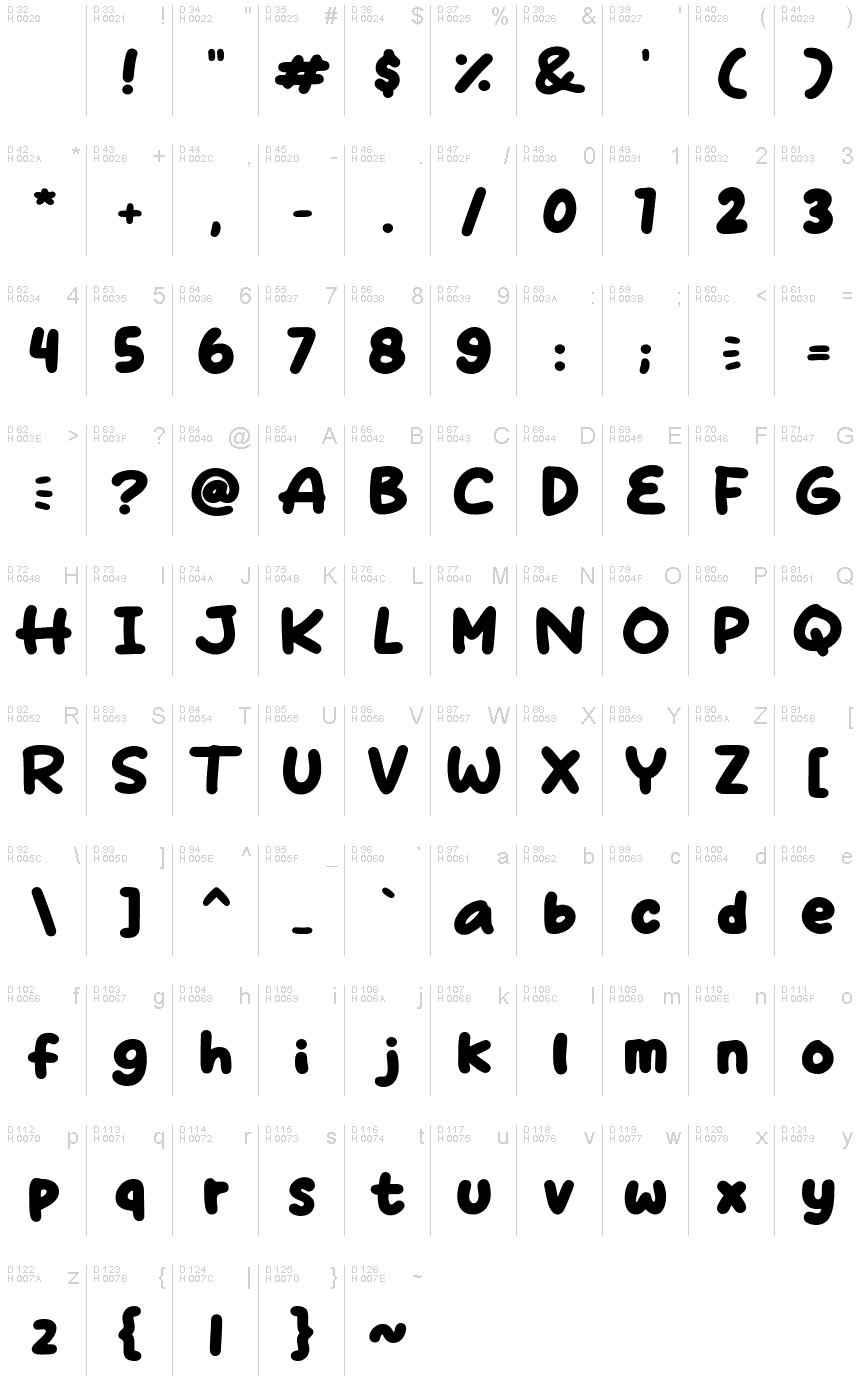
Take Coffee
Looking for a fun and playful font that will make your project stand out? Look no further than Take Coffee, designed by Khurasan. This bold display typeface features a cartoon style that is perfect for projects aimed at children or those looking to add a touch of whimsy to their design. Whether you're creating posters, logos, or social media graphics, Take Coffee is sure to grab attention and leave a lasting impression. So why settle for boring fonts when you can take your design to the next level with Take Coffee?